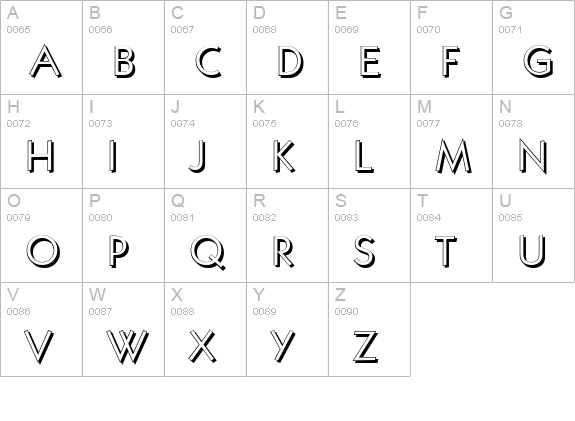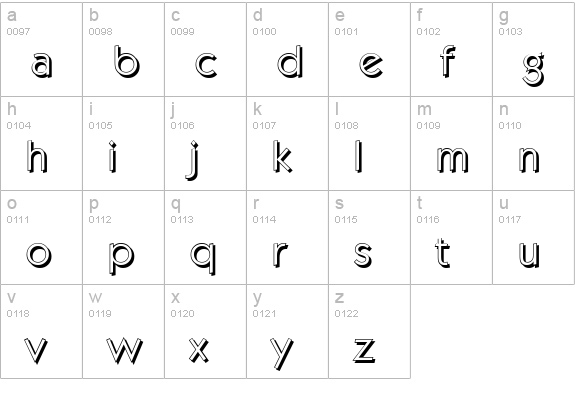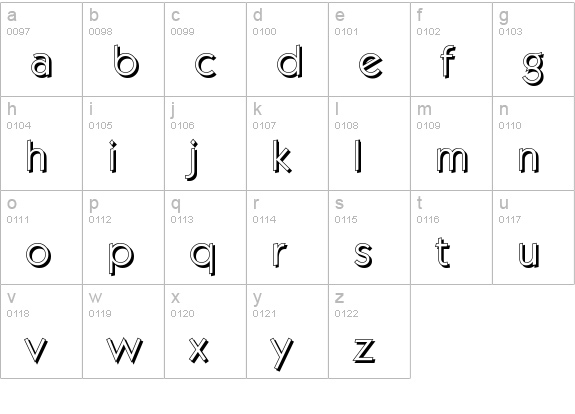
KoblenzShadow-Light-Regular is a refined, elegant variant in the KoblenzShadow typeface family \xE2\x80\x94 well suited to elegant body text, refined sub-headings, and luxury branding.
KoblenzShadow-Light-Regular is a versatile and elegant font that exudes a sense of sophistication and modernity. The delicate shadow effect adds a unique touch to its classic design, making it perfect for a wide range of design projects. This font strikes the perfect balance between lightness and readability, making it suitable for both headers and body text. The clean lines and subtle shadow detail of KoblenzShadow-Light-Regular make it ideal for use in branding, advertising, and editorial design. Whether you are creating a sleek logo, designing a stylish magazine layout, or crafting eye-catching social media graphics, this font will elevate your work to the next level. Best of all, KoblenzShadow-Light-Regular is available for free download at FontsMarket.com. Take advantage of this opportunity to enhance your design projects with this sophisticated and versatile font. Elevate your typography game with KoblenzShadow-Light-Regular today!